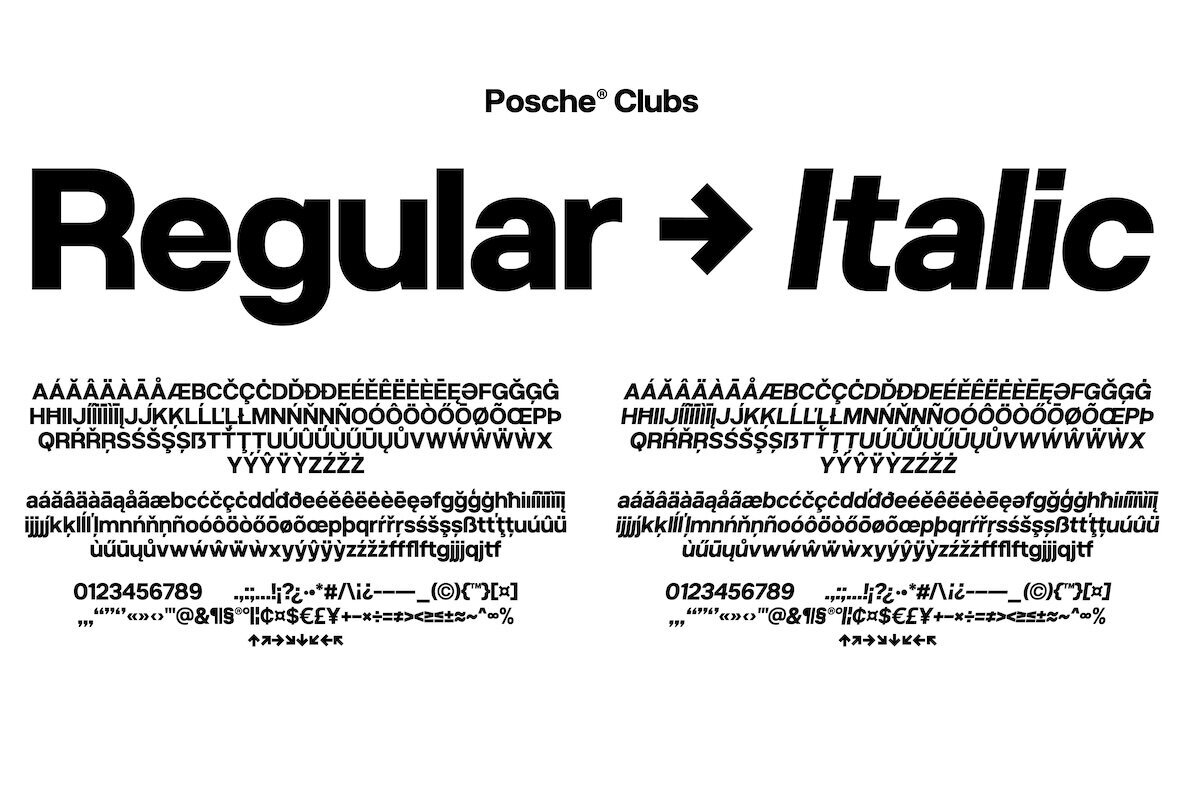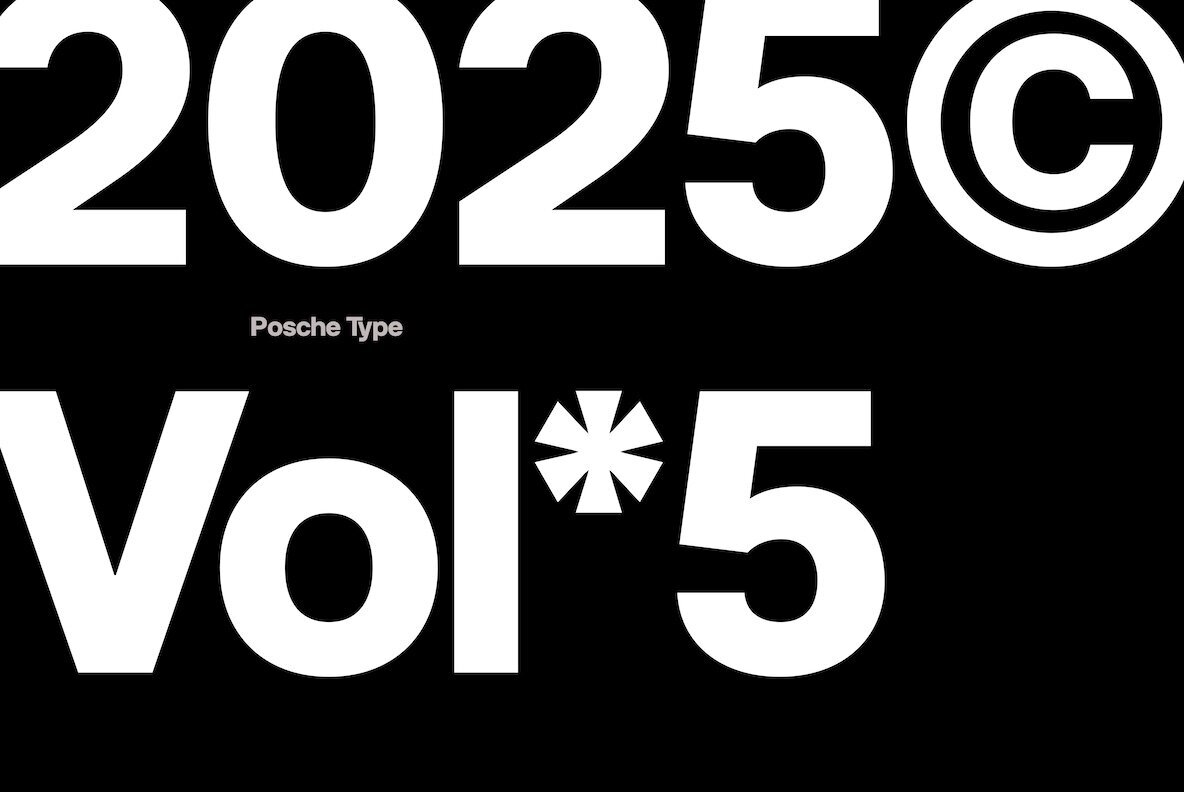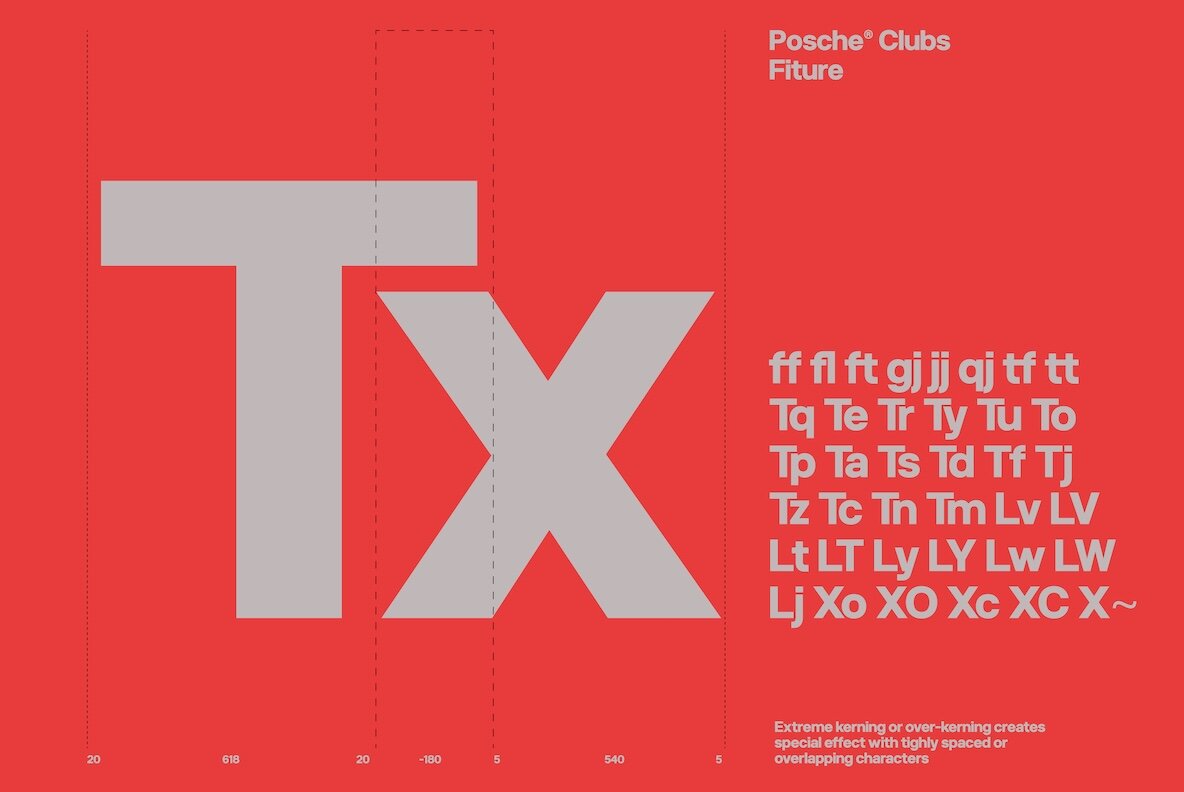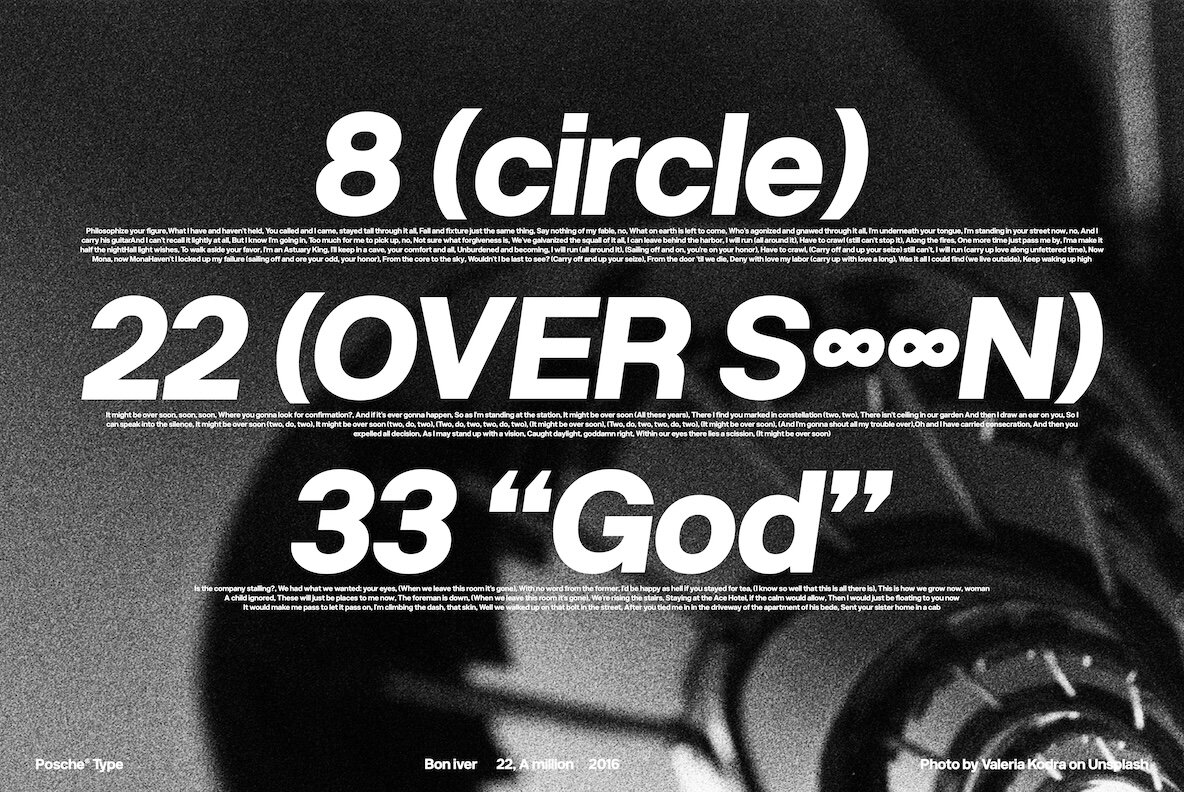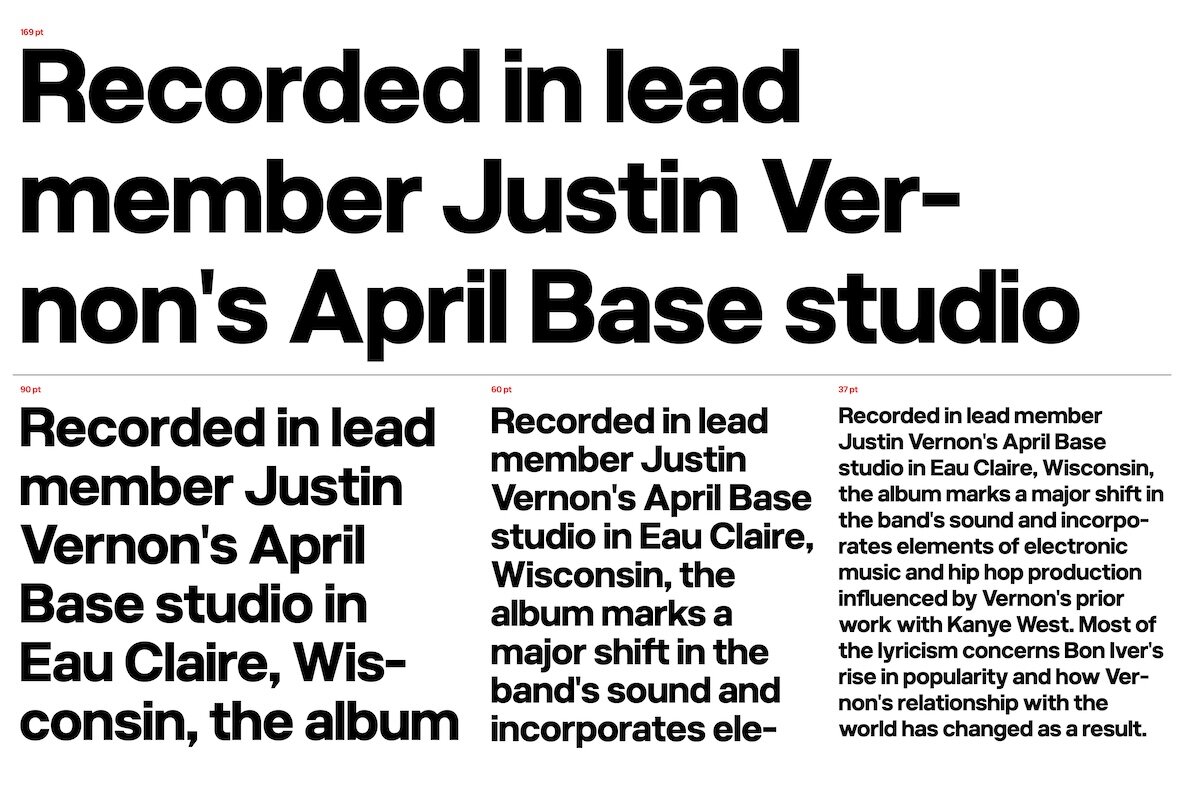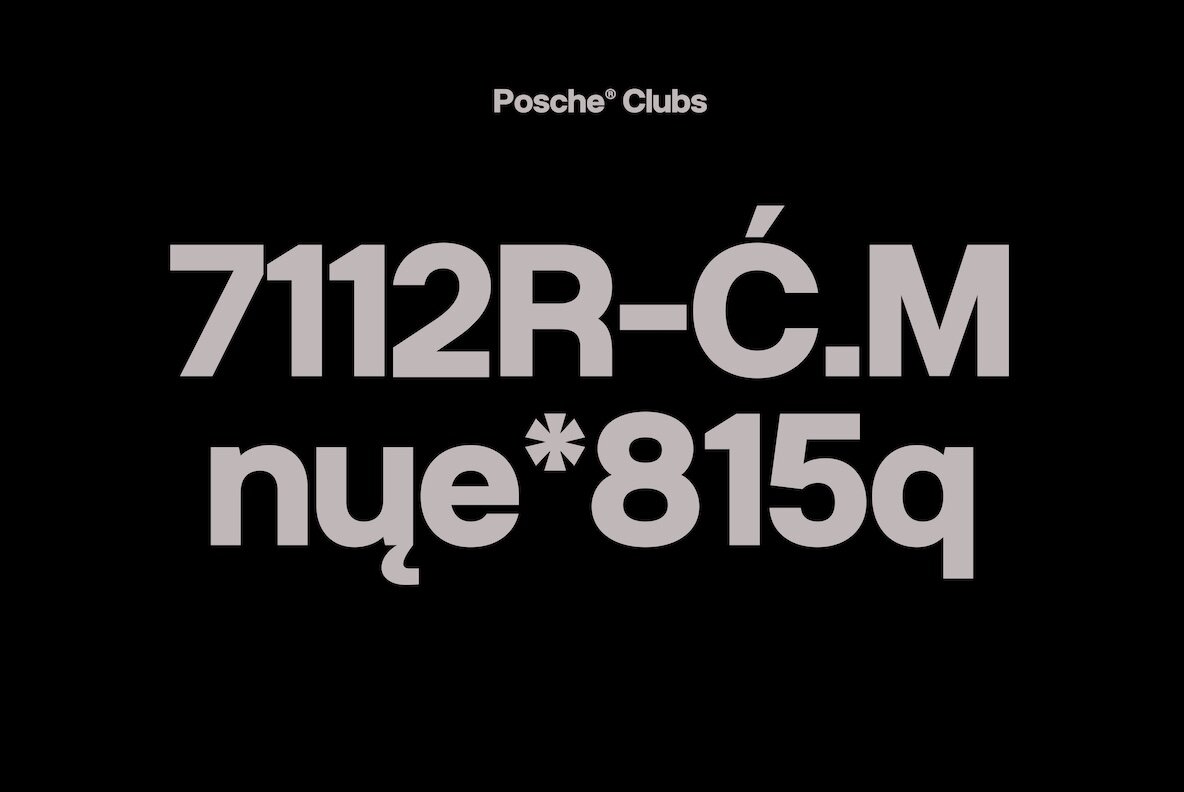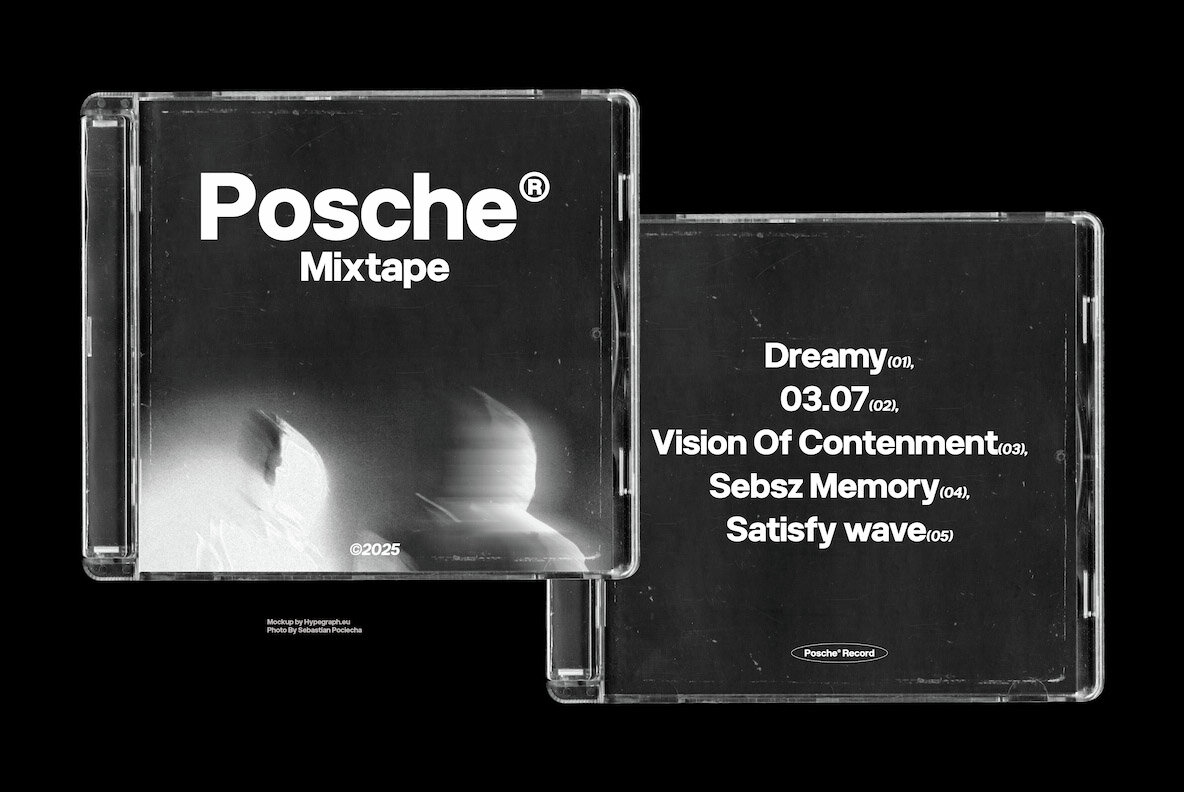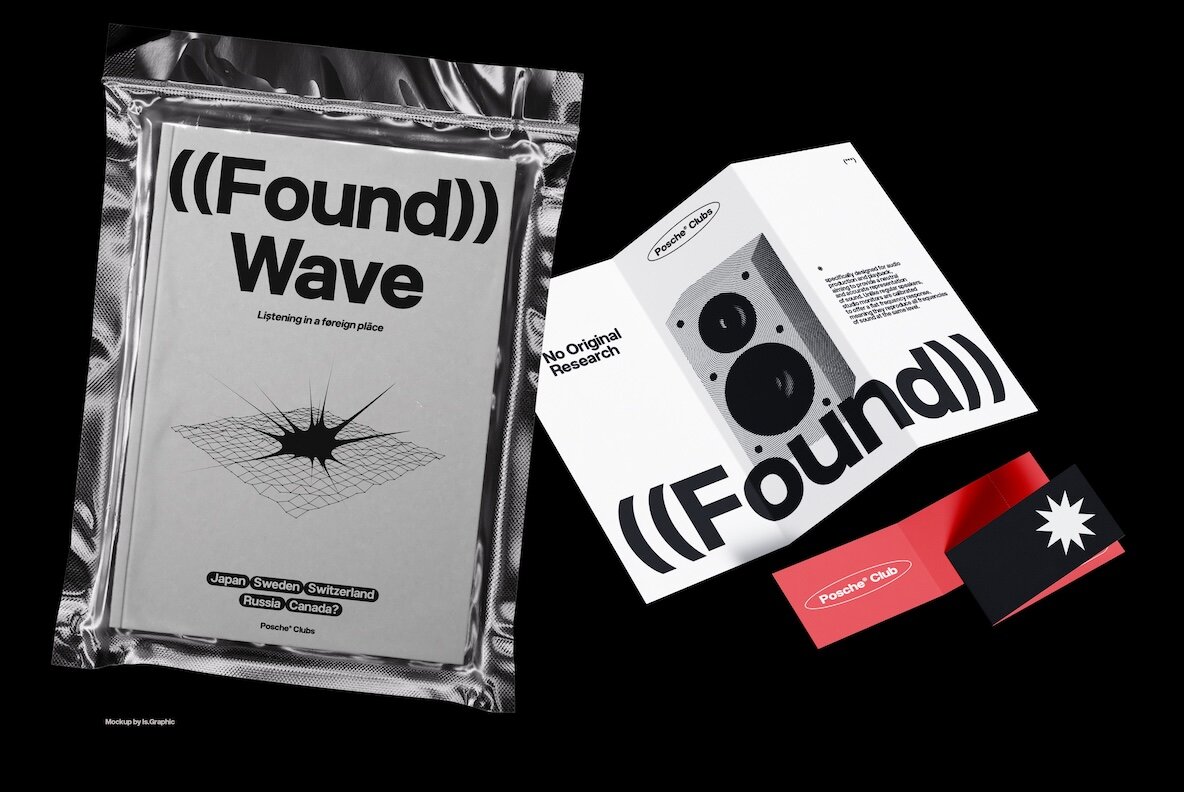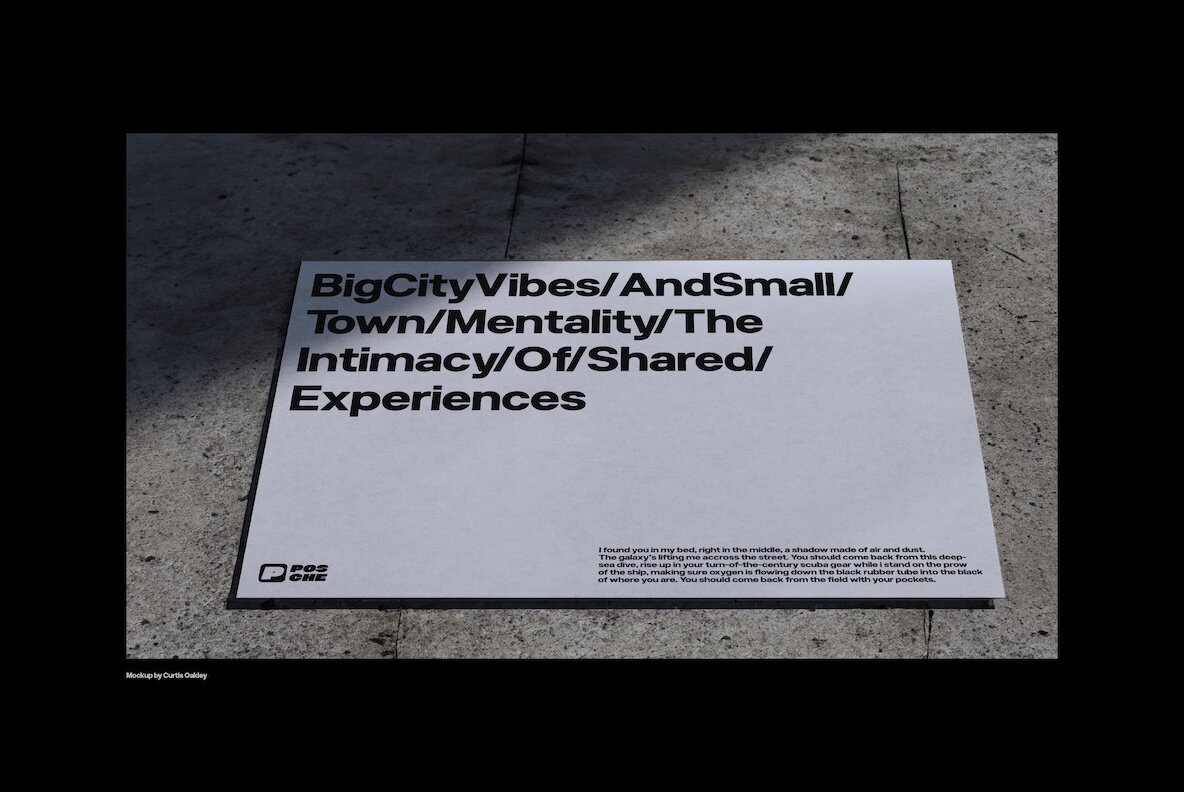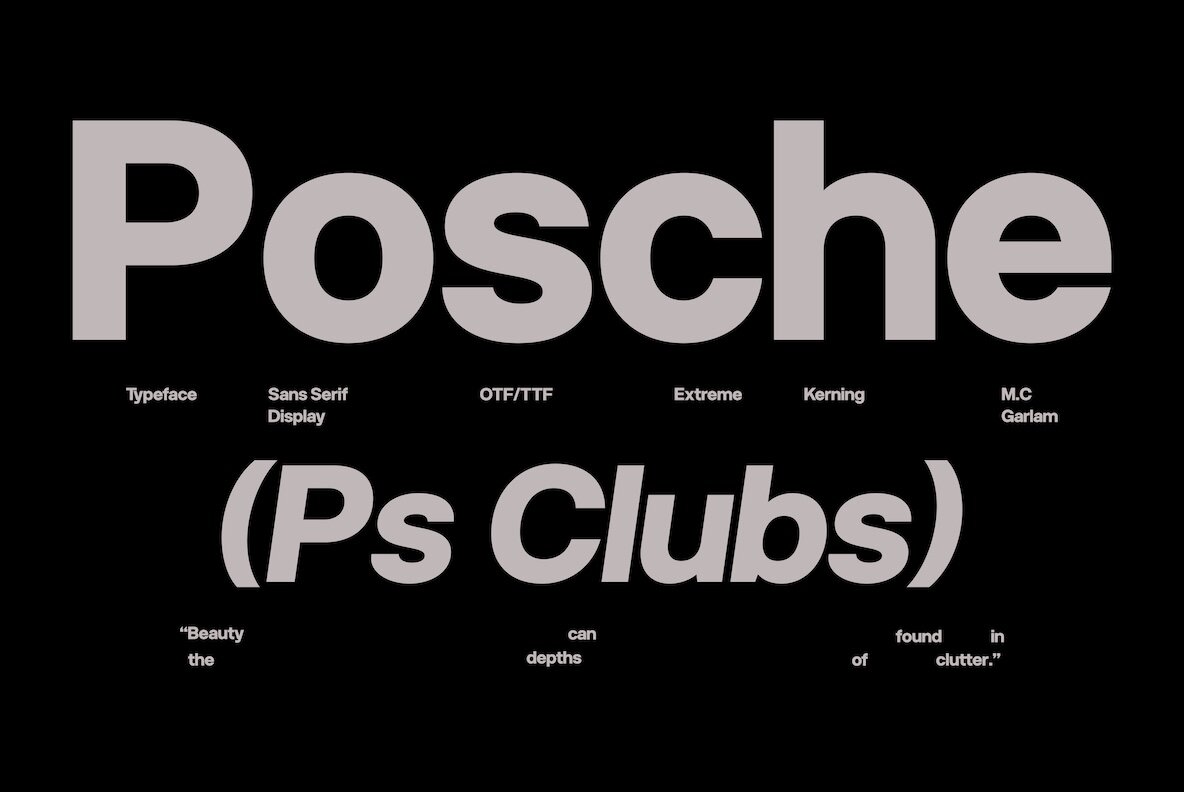
PS Clubs Font
PS Clubs is a sans-serif display typeface born from a desire to blend harmony with a touch of the extreme. The result is PS Clubs, featuring Regular and Italic Low Contrast style, each imbued with an edgy kerning that adds a unique flair. This distinctive characteristic elevates your designs, making them stand out. Perfect for posters, flyers, covers, social media content, and all aspects of branding, PS Clubs is incredibly versatile. Its clear readability also makes it an excellent choice for body text. The extreme kerning, while adding a touch of the unconventional, ultimately becomes a valuable asset in your design.